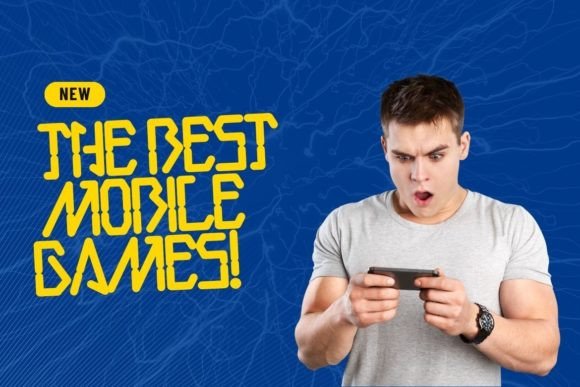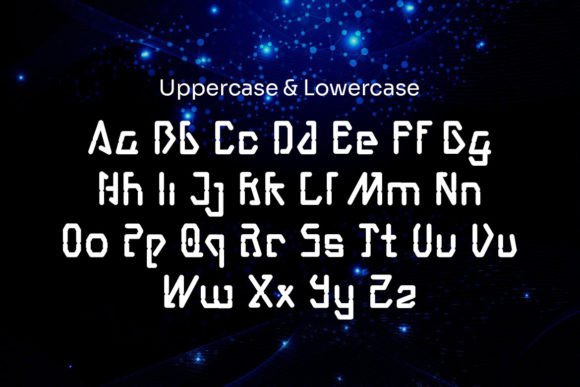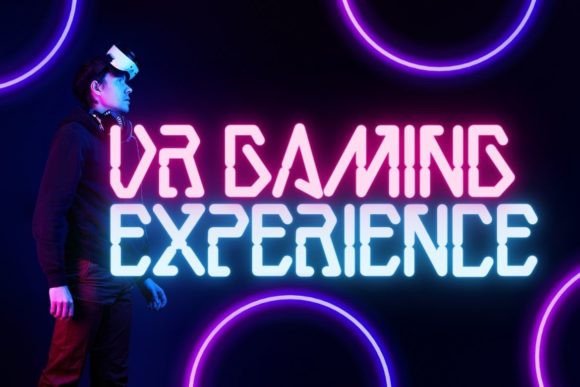
Introduction to Maximen Font
Have you ever stared at a blank canvas, trying to spark that initial creative idea, only to be met with an endless sea of possibilities? For designers, this moment is all too familiar. But what if you had the perfect design resource to elevate your creative project and give it that extra oomph? Enter the Maximen Font – a sleek, futuristic-looking display font that’s about to revolutionize the way you approach your next design.
With its unique blend of modernity and style, the Maximen Font is an invaluable addition to any designer’s library. Its transparent background and high-quality design make it a versatile tool for any creative endeavor, from digital art to graphic design.
Key Features of Maximen Font
- High-quality font design ideal for creative projects
- Comes with transparent background for seamless integration
- Supports various languages and character sets for global use
Honest Review: Maximen Font
I recently stumbled upon the Maximen Font, and I must say, it’s been a game-changer for my design projects. As a designer, I’m always on the lookout for high-quality design resources that can elevate my creative work.
- ✨ High-quality font with a modern and sleek design
- ✨ Transparent background, making it perfect for use on any background
One of the things I love about the Maximen Font is its versatility. It’s perfect for use in logos, headings, and even body text. The font is highly customizable, allowing me to tweak it to fit my specific design needs.
However, I did encounter a few limitations. ⚠️ The font can be a bit too bold for some designs, and it may not be suitable for use in text-heavy projects. Additionally, the font file size can be a bit large, which may impact page load times.
Overall, I’m thoroughly impressed with the Maximen Font. It’s a valuable addition to my design arsenal, and I’ve already used it in several creative projects. If you’re looking for a high-quality font that’s easy to use and customize, I highly recommend giving the Maximen Font a try.
The Maximen Font is perfect for use in a variety of creative projects, including logos, brochures, business cards, and social media graphics. Its high-quality design and transparent background make it ideal for use on images and graphics.